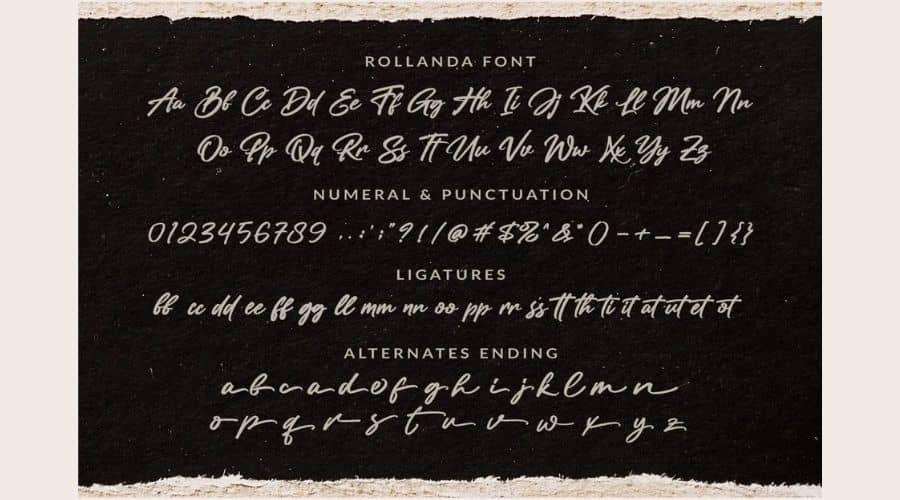
Rollanda Textured Signature Script Font
Rollanda is a signature typeface with a rough appearance. This is a modern trademark font with a stylish look. It’s an extremely appealing and powerful font choice for a variety of creative tasks, with quick lines and realistic dry textures. This typeface set is available in OTF format.
Ligatures (double letters that flow more smoothly) are offered for various lowercase characters in this lovely Font. These can only be accessed via OpenType software or a glyphs panel, such as Adobe InDesign. Photo editing. This exceptional signature font is great for your creative design ideas because it is extremely versatile, beautiful, and easygoing.
It retains its traditional handwritten influences while remaining new and modern. Rollanda is a sleek, yet another font with a natural look. It was created and published by Subectype, and it’s a fantastic choice for anyone looking for a unique typeface. The file size is 19.29 MB and it was released on August 4, 2020. Any design idea with Rollanda will have an organic feel to it!
Rollanda is an elegant and handwritten font that is distinct, delicate, and one-of-a-kind. This Font is ideal for branding projects, homeware designs, product packaging, Trademark, Clothing, and even as a stunning text overlay on any grey background.
The Font looks well on any sort of background. The beautiful script and Handwritten font will also look fantastic on greeting cards. Any form of professional visiting card will look great with this typeface. Rollanda Textured Signature Script Font goes with any color you can think of. Every endeavor, whether personal or professional, looks great with this font. The font will also look fantastic in the headings and subheadings of any book.